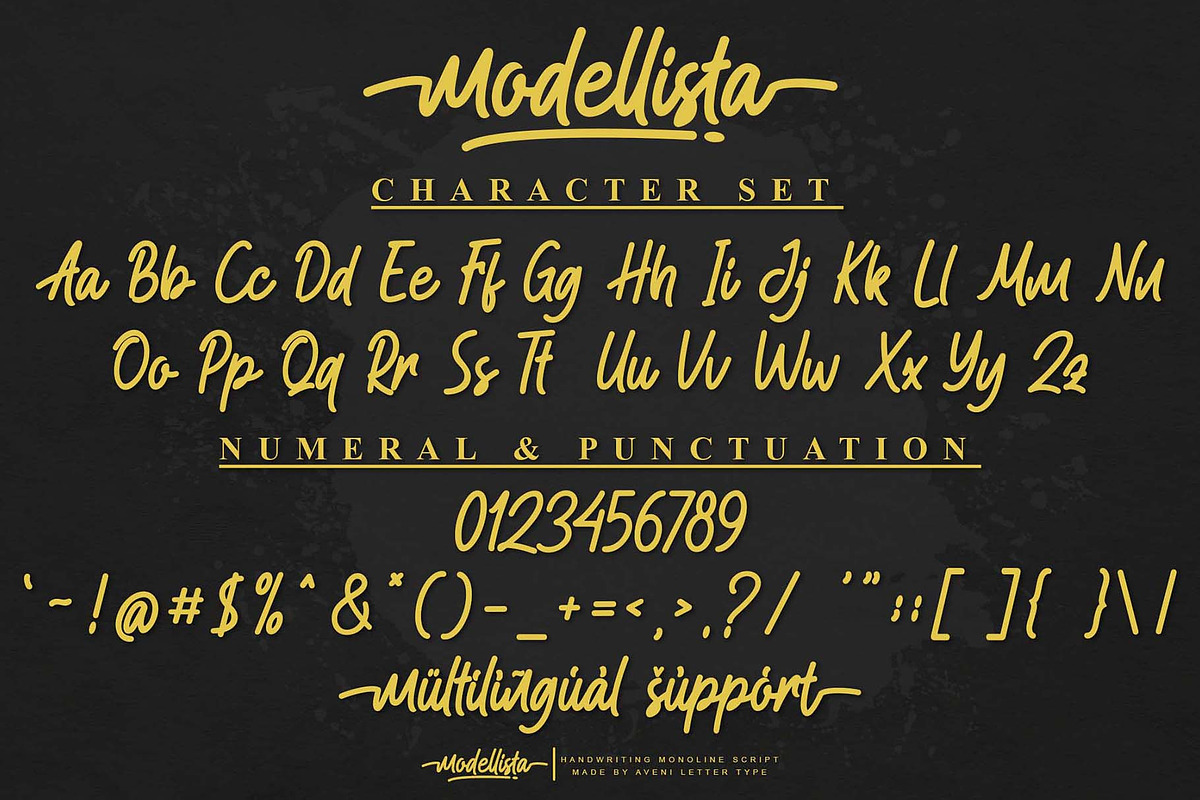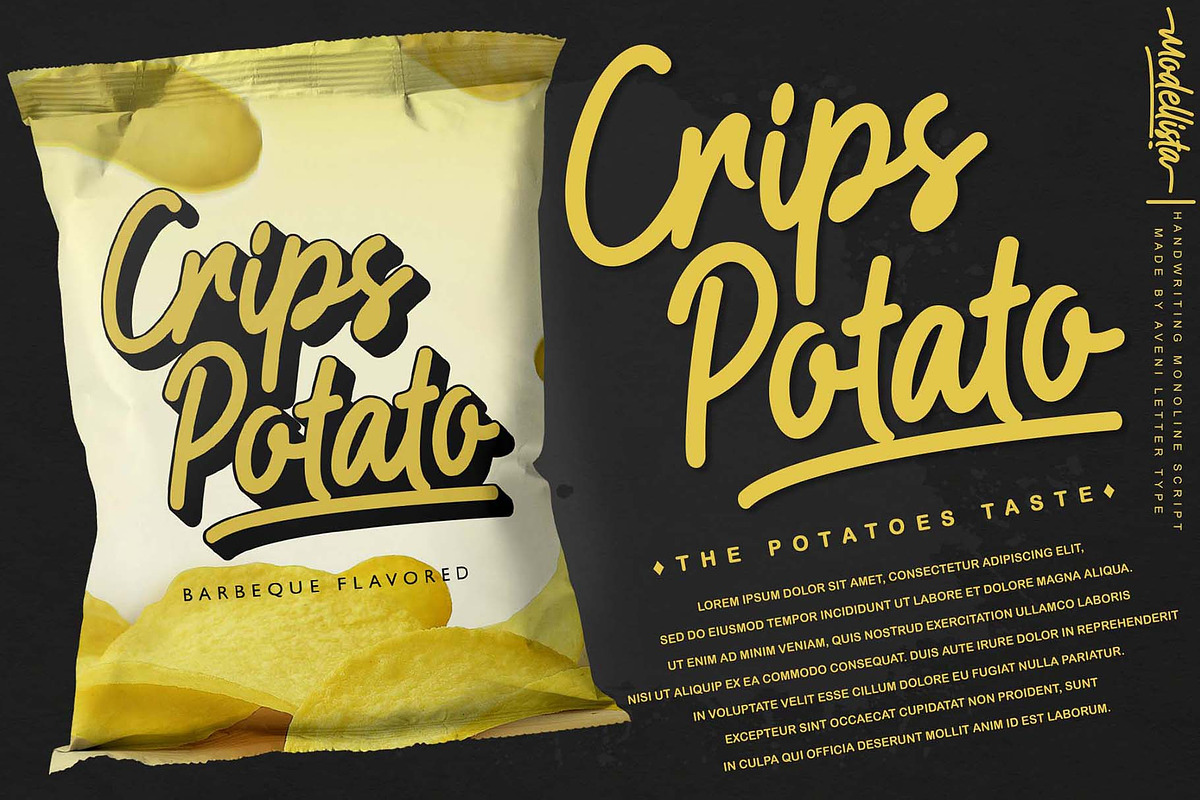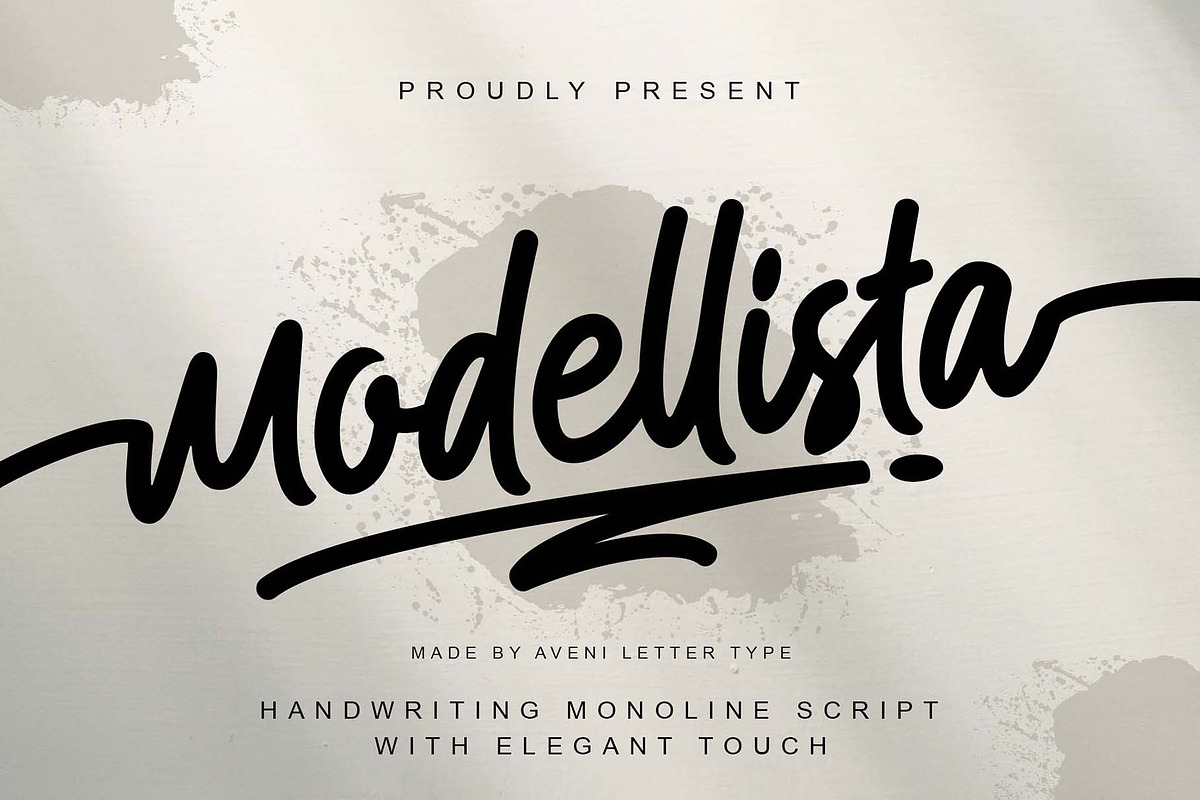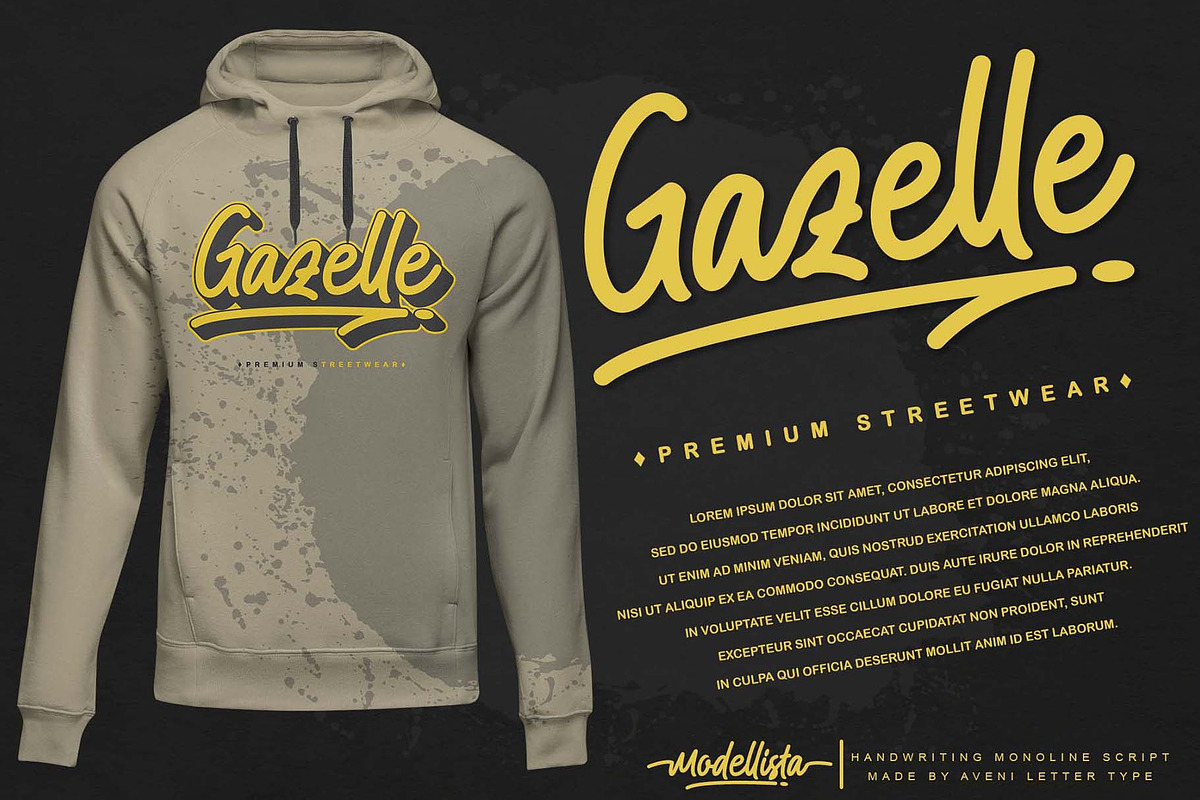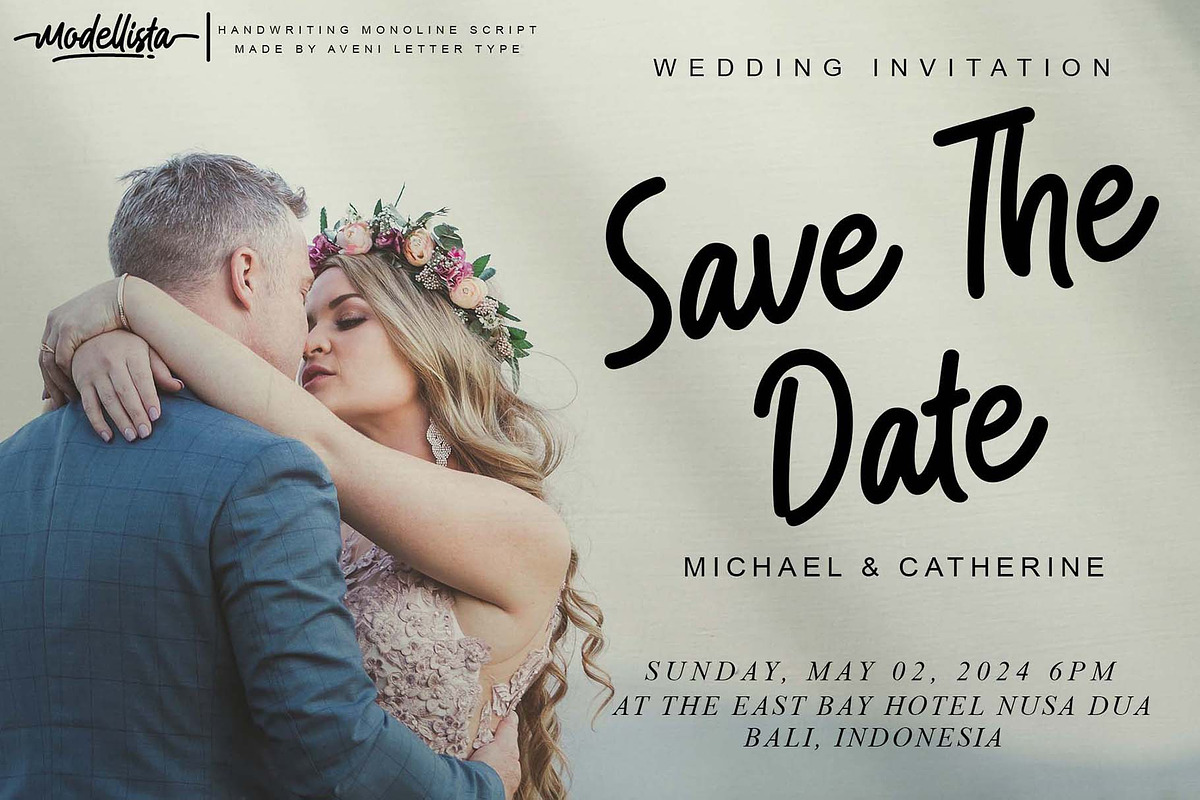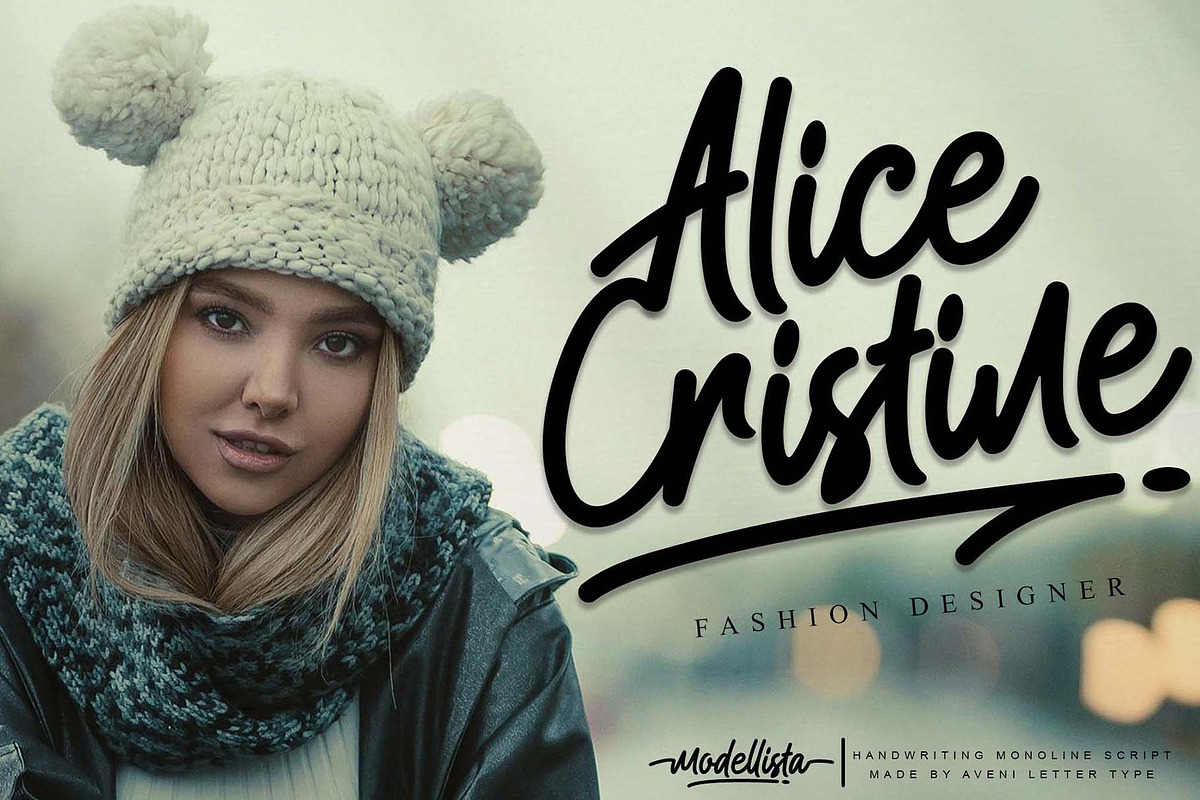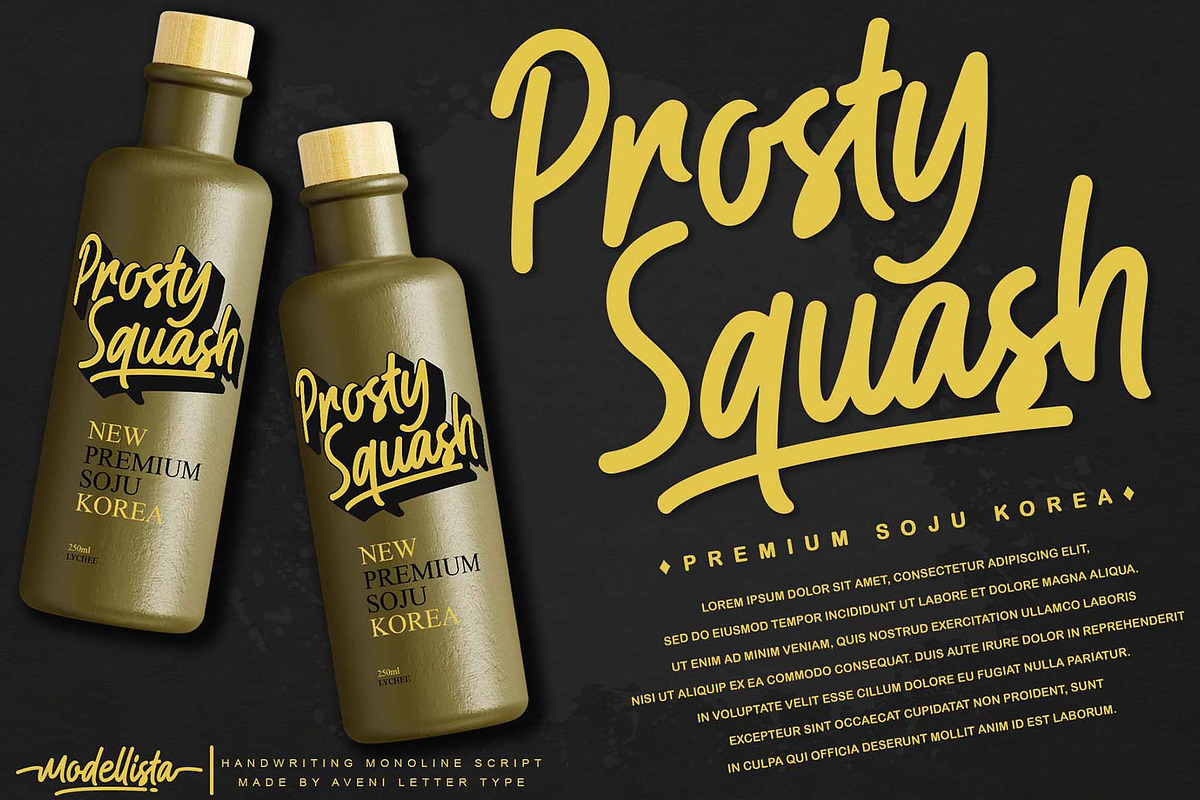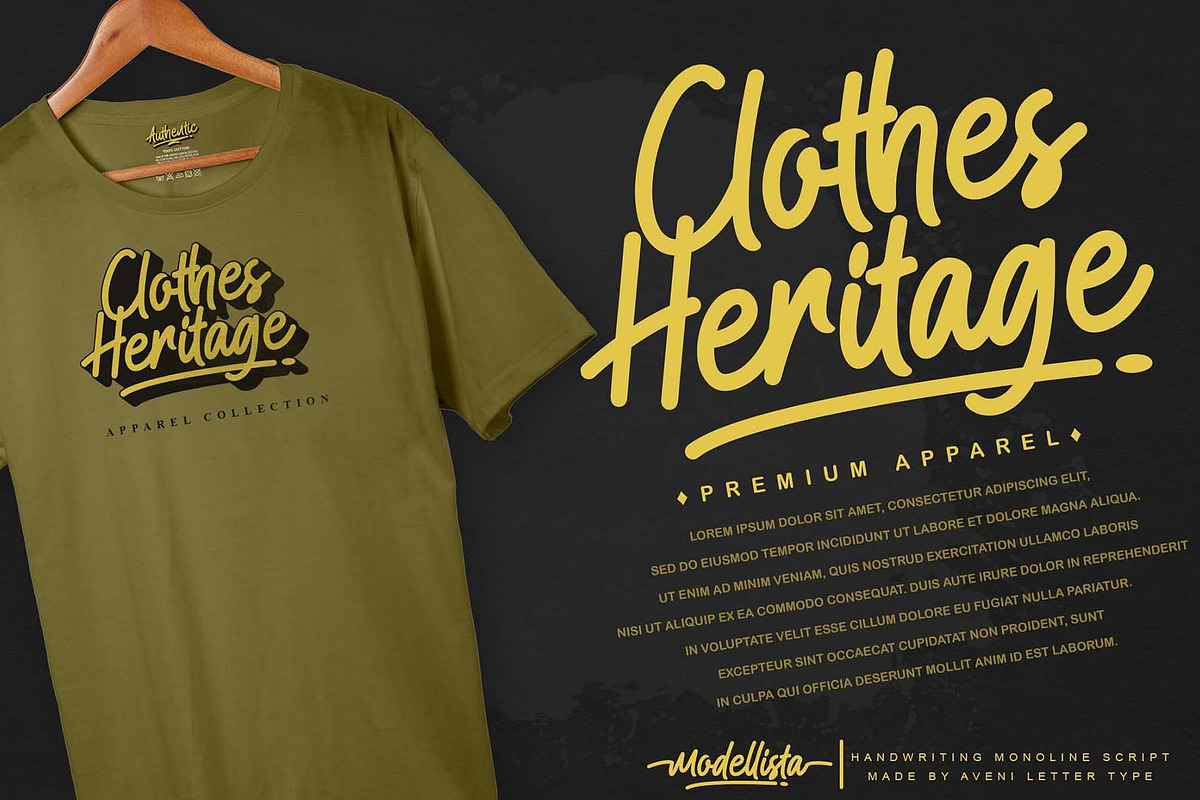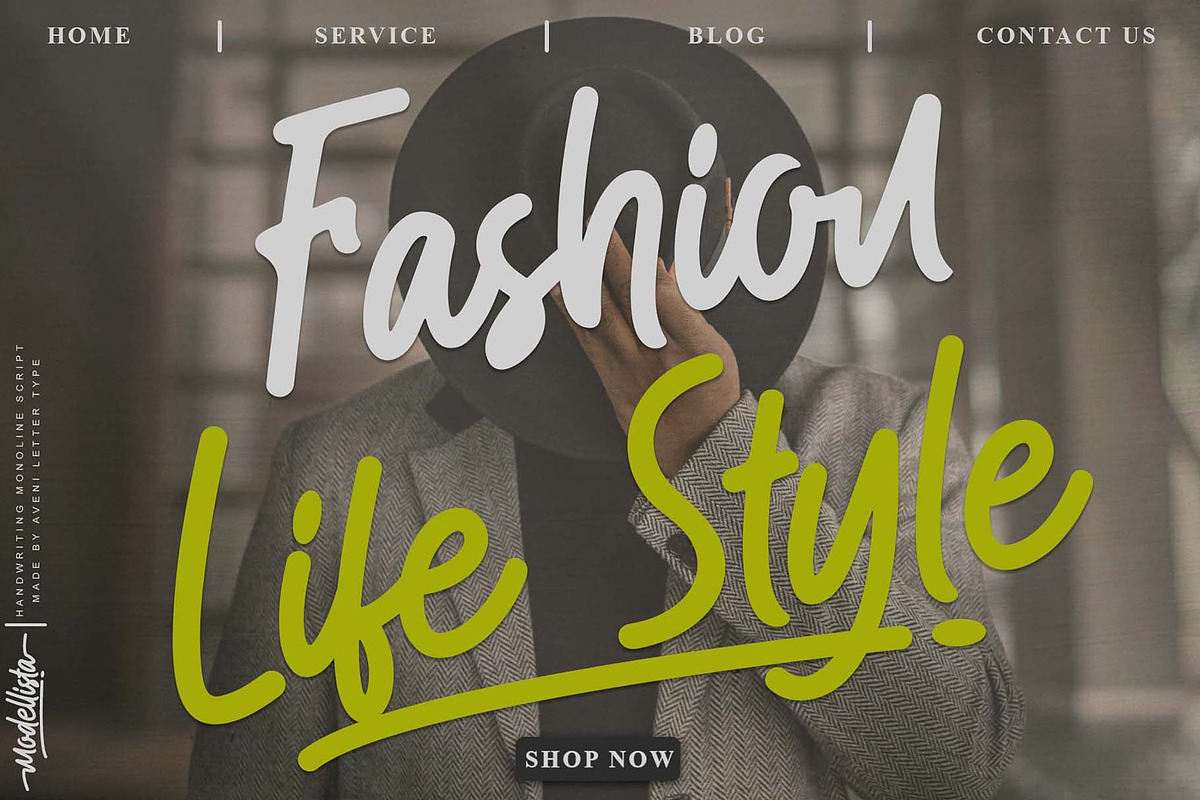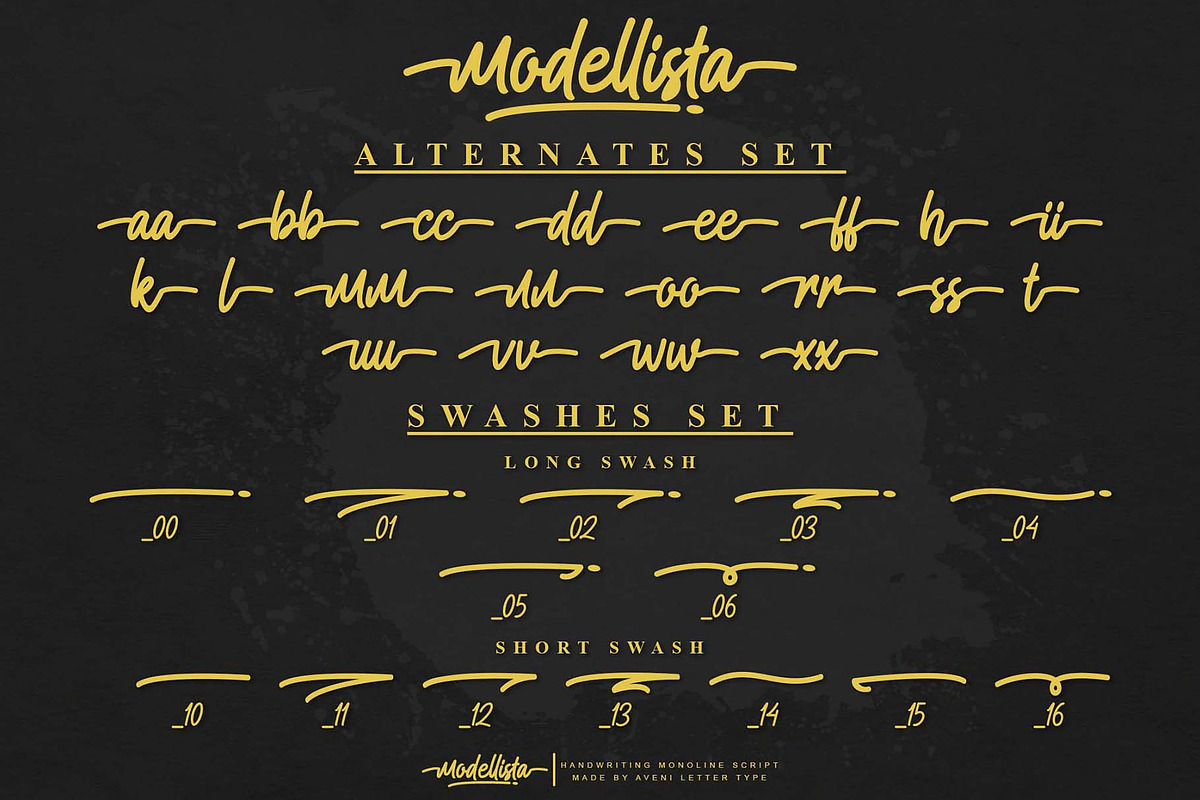
Modellista | Handwriting Font
Hello friends, I am the Modellista font born with a beautiful monoline handwriting style. This Modellista font has been kerned very neatly and has many ligatures, and alternate characters along with swashes that are very easy to use for PC and MAC. And of course, this Modellista font can be used for many projects that you are working on such as greeting cards, wedding invitation cards, product branding, logos, websites, business cards, letterheads, shop names, company names, wedding invitation cards, packaging products for your business, clothing branding, crafts, and many more.
Here I give a little way to use swashes in the Modellista font:
Use the code listed on the thumbnail, such as _01 to create a swash.
Example: Modellist_01a
It should be noted that SWASH with the code " _01 " in the Modellista font can be used when the standard ligature feature is active in your design software.
Modellista Featured :
- Ligature & Swashes